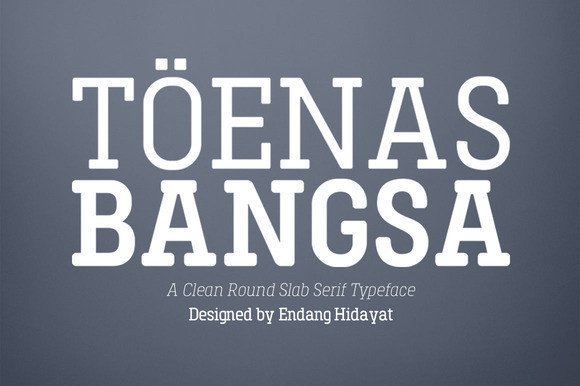
Unleash a Typographic Symphony with Toenas Bangsa Slab: Where Elegance Meets Readability
Feast your eyes on Toenas Bangsa Slab, a breathtaking serif font family that effortlessly blends the charm of classic typefaces with a modern, minimalist aesthetic. Crafted by the skilled artisans at Bang Kumis Typefoundry, this font collection captivates with its clean lines, smooth curves, and undeniable elegance.
Toenas Bangsa Slab is the perfect font family for discerning designers seeking a visually stunning yet highly legible font. Its meticulously balanced strokes, generous x-height, and carefully kerned letterforms ensure optimal readability even in small sizes, making it ideal for body text, headings, and captions.
With six versatile styles ranging from Light to Bold plus graceful italics, Toenas Bangsa Slab offers a wide spectrum of design possibilities. Whether you're creating logotypes, crafting headlines, designing print applications, or producing quotations and short texts, this font family will elevate your work to new heights.
Immerse yourself in the world of Toenas Bangsa Slab and experience the joy of typography at its finest. Its timeless appeal and unwavering readability make it the perfect choice for designers seeking to make a lasting impression. Embrace the beauty of classic typography with a modern twist and unlock the full potential of your creative vision.